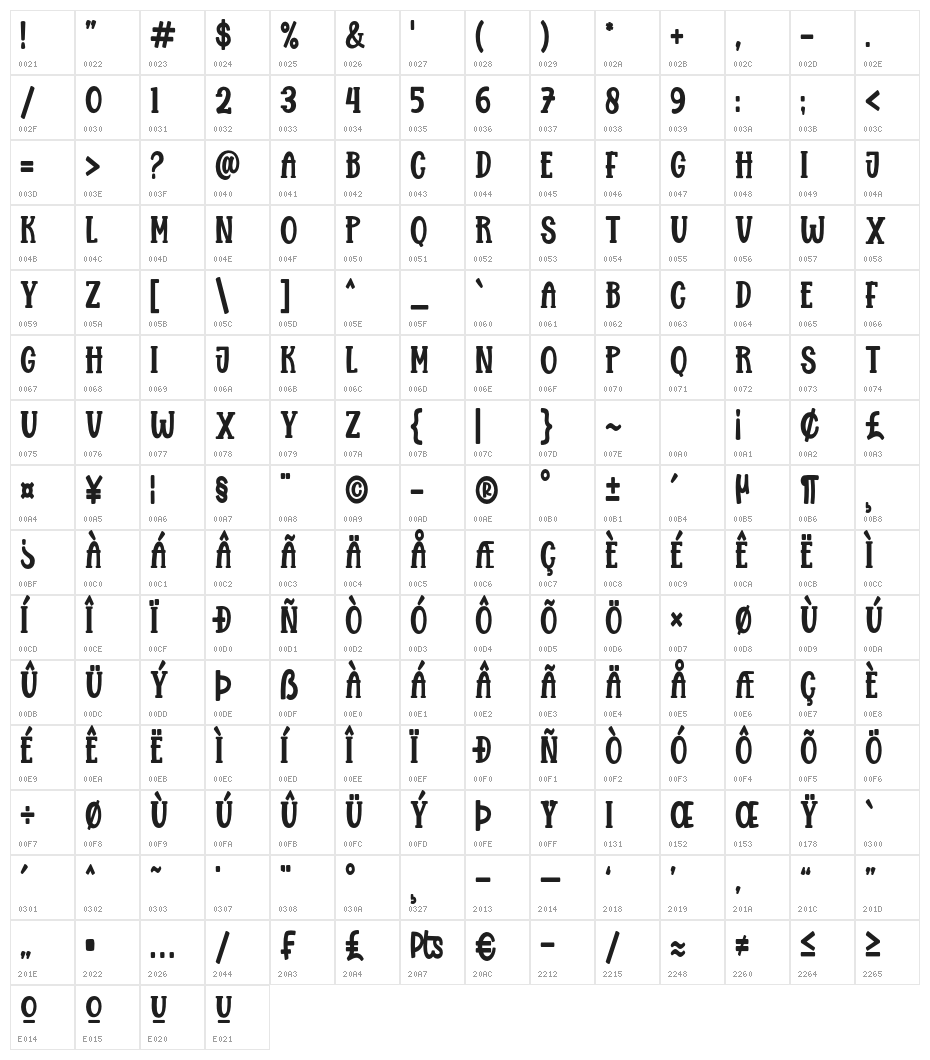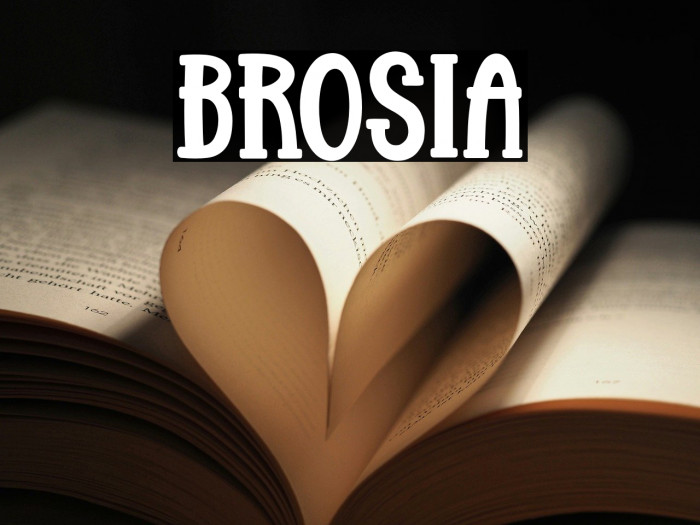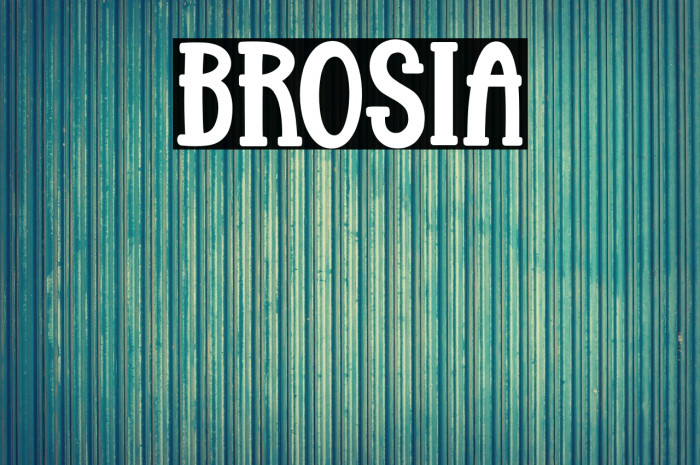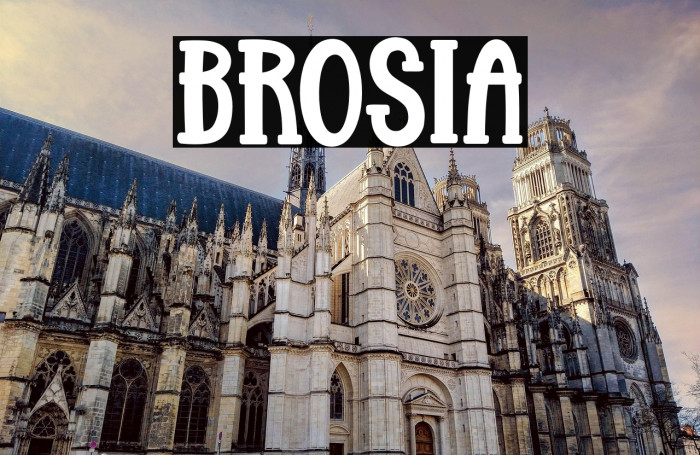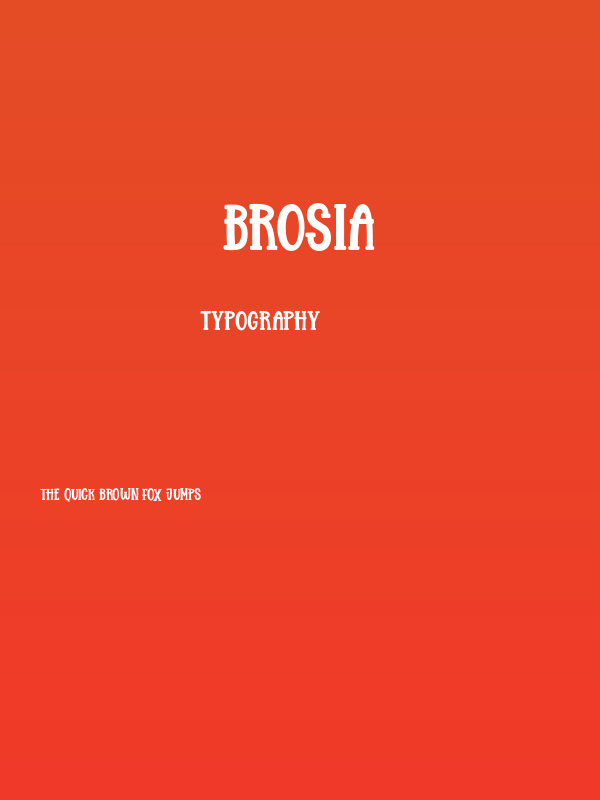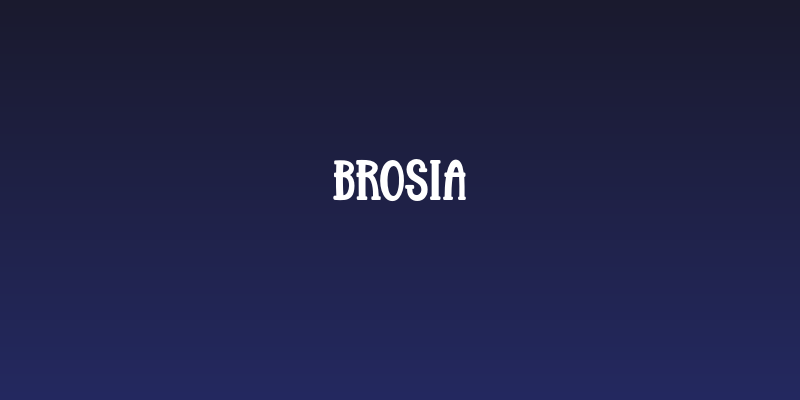
Brosia Font
Brosia Description
This font features a bold and playful design with a strong presence. The characters are rounded with a slight slant, giving them a dynamic and energetic feel. The uppercase letters are tall and commanding, while the lowercase letters maintain a consistent style that complements the uppercase. The numerals are equally bold, ensuring readability and impact. Special characters are designed with the same playful style, making them suitable for a variety of creative applications. The overall appearance is both modern and slightly retro, making it versatile for different design needs.
| Overall Style | Playful, Modern, Retro |
| Proposed Projects | Ideal for branding, posters, children's books, and playful graphic design projects. |